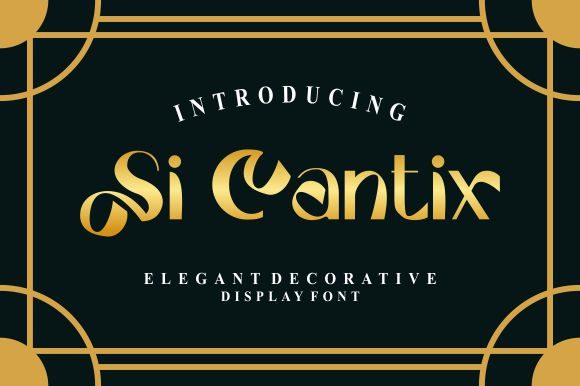
Behold the Enchanting World of Si Cantix Font: Where Luxury and Uniqueness Intertwine!
Journey with us into the captivating realm of Si Cantix Font, a display font of unrivaled beauty and versatility. This exquisite creation by juliawan is a symphony of flowing lines, elegant curves, and captivating details that will elevate your designs to new heights.
Si Cantix is more than just a font; it's an artistic masterpiece that captures the essence of luxury and sophistication. Its intricate details and delicate flourishes evoke an aura of elegance that will leave your audience spellbound. Whether you're designing a timeless logo, a heartfelt wedding invitation, or a captivating poster, Si Cantix is the perfect choice to convey your message with style and impact.
Unleash the boundless possibilities of Si Cantix and let your creativity soar. Its versatility extends beyond traditional applications; experiment with it on t-shirts, letterheads, signage, labels, and even news and posters. From bold headlines that command attention to delicate badges that add a touch of refinement, Si Cantix transforms your designs into visual masterpieces.
Imagine the allure of a logo that emanates luxury and exclusivity. The intricate curves of Si Cantix intertwine to create a visual identity that speaks volumes about your brand's essence. Witness the magic as your wedding invitations adorned with Si Cantix's graceful script transport your guests to a world of romance and elegance. Headlines crafted with Si Cantix grab attention like magnets, captivating readers and drawing them into your captivating content.
But the power of Si Cantix doesn't end there. Its adaptability extends to the digital realm as well. Craft social media posts and online advertisements that radiate sophistication and catch the eye of potential customers. With Si Cantix, your brand's online presence will exude an aura of professionalism and distinction, setting you apart from the competition.
The beauty of Si Cantix lies in its ability to seamlessly blend with various design styles. Its timeless charm complements both classic and contemporary aesthetics, making it a versatile choice for designers of all tastes. Experiment with different color palettes and backgrounds to showcase the font's versatility and create designs that truly resonate with your audience.
So, why settle for ordinary fonts when you can immerse yourself in the world of Si Cantix? Indulge in the luxurious details, embrace the versatility, and elevate your designs to new heights. Let Si Cantix be your creative companion, guiding you towards design brilliance.